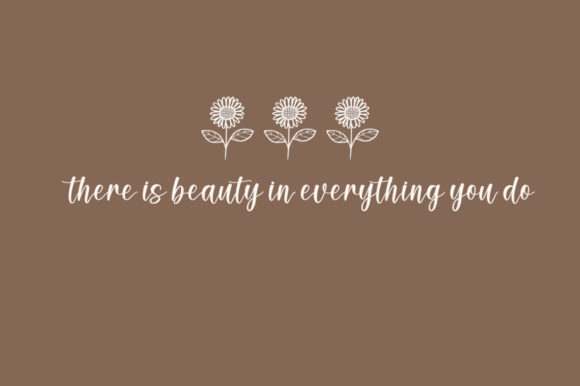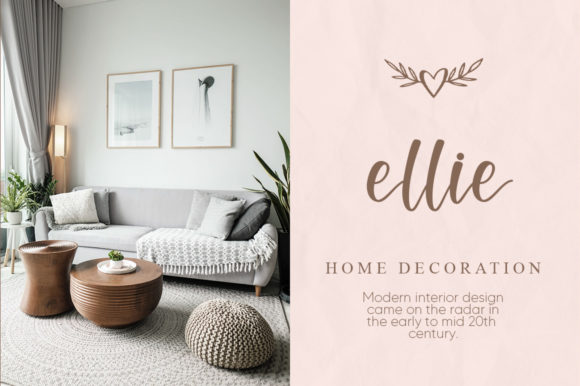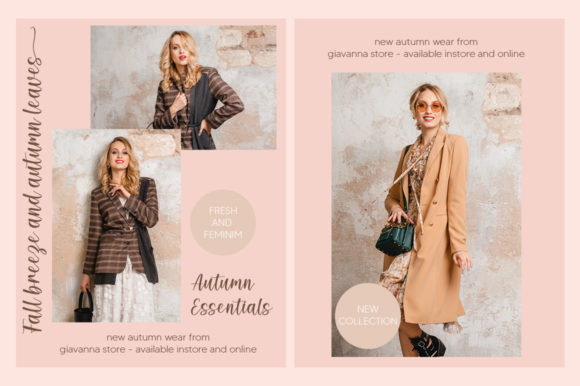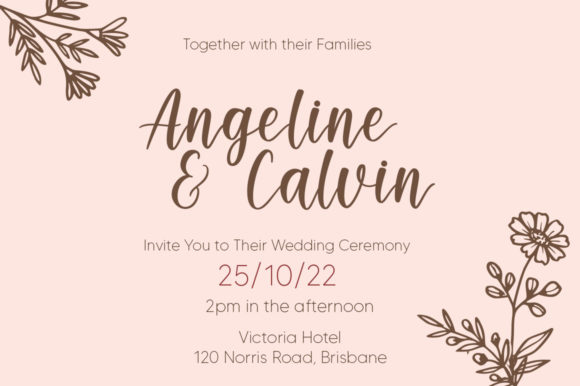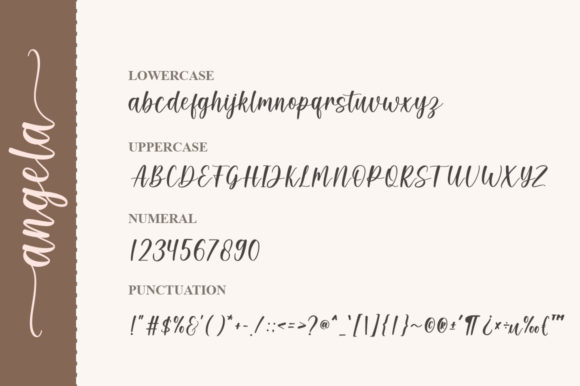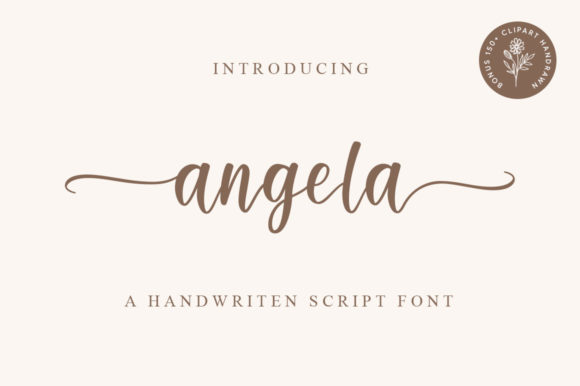
Discover the Elegance of Angela Font: A Dainty Script Font for Your Creative Projects
Are you looking for a font that exudes romance and sophistication? Look no further than Angela Font, a beautiful and flowing script font that is perfect for a variety of creative projects. In this article, we’ll take a closer look at Angela Font, its features, and how you can use it to add a touch of elegance to your designs.
What is Angela Font?
Angela Font is a dainty and flowing script font that is designed to add a touch of romance and whimsy to your designs. With its delicate lines and curves, this font is perfect for creating beautiful wedding invitations, love letters, and other designs that require a personal touch.
One of the standout features of Angela Font is its PUA (Private Use Area) encoding, which allows you to access all glyphs and swashes with ease. This means that you can easily add flourishes and other decorative elements to your text, giving your designs a unique and personalized look.
Features of Angela Font
So, what makes Angela Font so special? Here are just a few of its key features:
- Dainty and flowing script: Angela Font features a beautiful, cursive script that is perfect for creating elegant and sophisticated designs.
- PUA encoded: With PUA encoding, you can easily access all glyphs and swashes, giving you maximum flexibility and creative control.
- Romantic and lovely: Angela Font is designed to add a touch of romance and whimsy to your designs, making it perfect for wedding invitations, love letters, and other special occasions.
- Easily customizable: With Angela Font, you can easily add your own personal touches to your designs, making them truly unique and one-of-a-kind.
Using Angela Font in Your Designs
So, how can you use Angela Font in your designs? Here are just a few ideas to get you started:
- Wedding invitations: Angela Font is perfect for creating beautiful and elegant wedding invitations that will set the tone for your special day.
- Love letters: Add a touch of romance to your love letters with Angela Font, making them truly special and memorable.
- Greeting cards: Use Angela Font to create beautiful and personalized greeting cards for special occasions, such as Valentine’s Day or anniversaries.
- Branding and packaging: Angela Font can also be used in branding and packaging designs, adding a touch of elegance and sophistication to your products.
Tips for Getting the Most Out of Angela Font
To get the most out of Angela Font, here are a few tips to keep in mind:
- Experiment with different sizes and colors: Angela Font looks great in a variety of sizes and colors, so don’t be afraid to experiment and find the perfect combination for your design.
- Use it sparingly: While Angela Font is beautiful and elegant, it can also be overwhelming if used too much. Use it sparingly to add a touch of sophistication to your designs.
- Pair it with other fonts: Angela Font pairs well with a variety of other fonts, so don’t be afraid to experiment with different combinations to find the perfect look for your design.
Angela Font is a beautiful and elegant script font that is perfect for adding a touch of romance and sophistication to your designs. With its PUA encoding and easily customizable features, it’s a great choice for designers and crafters looking to create unique and personalized designs. Whether you’re creating wedding invitations, love letters, or other special designs, Angela Font is sure to impress.